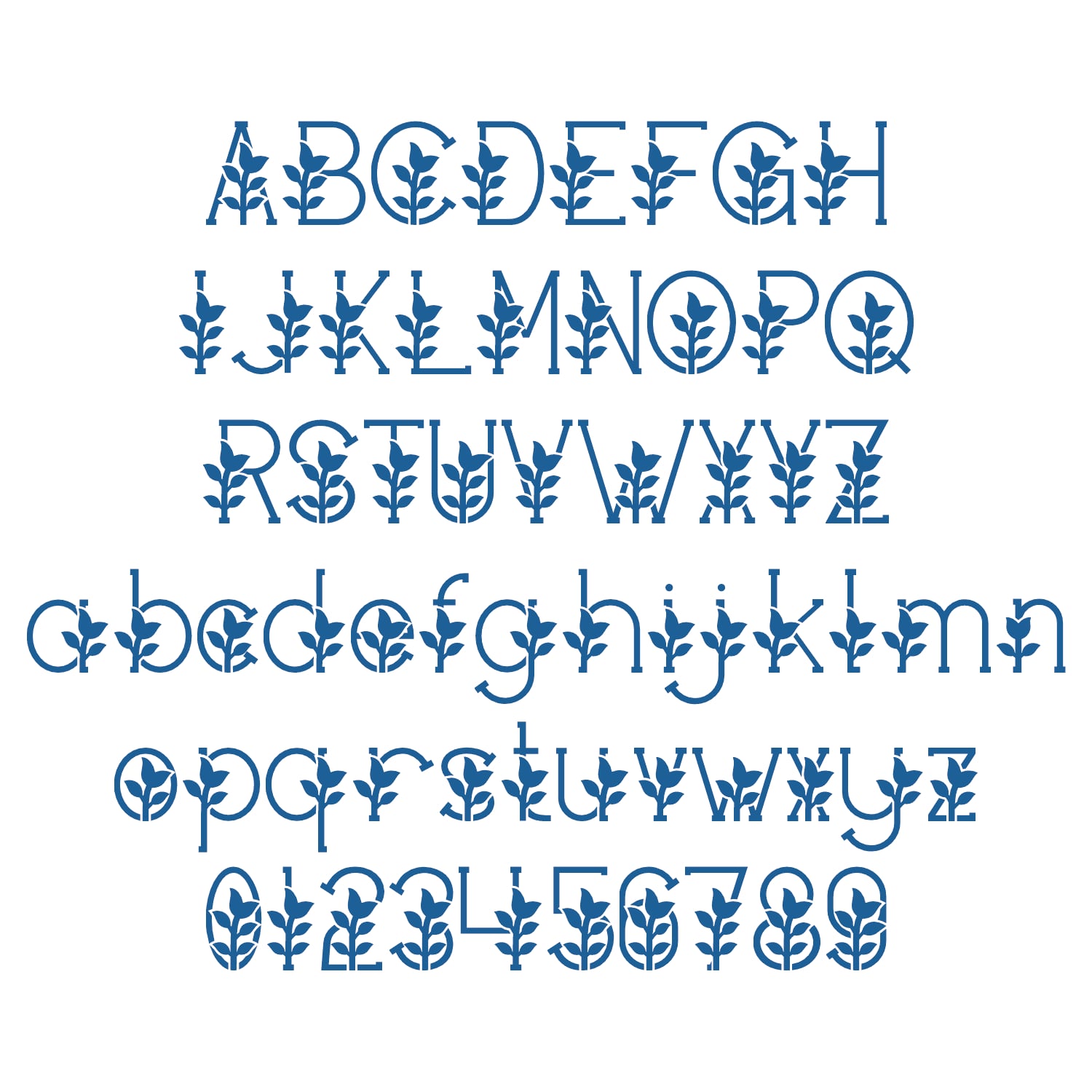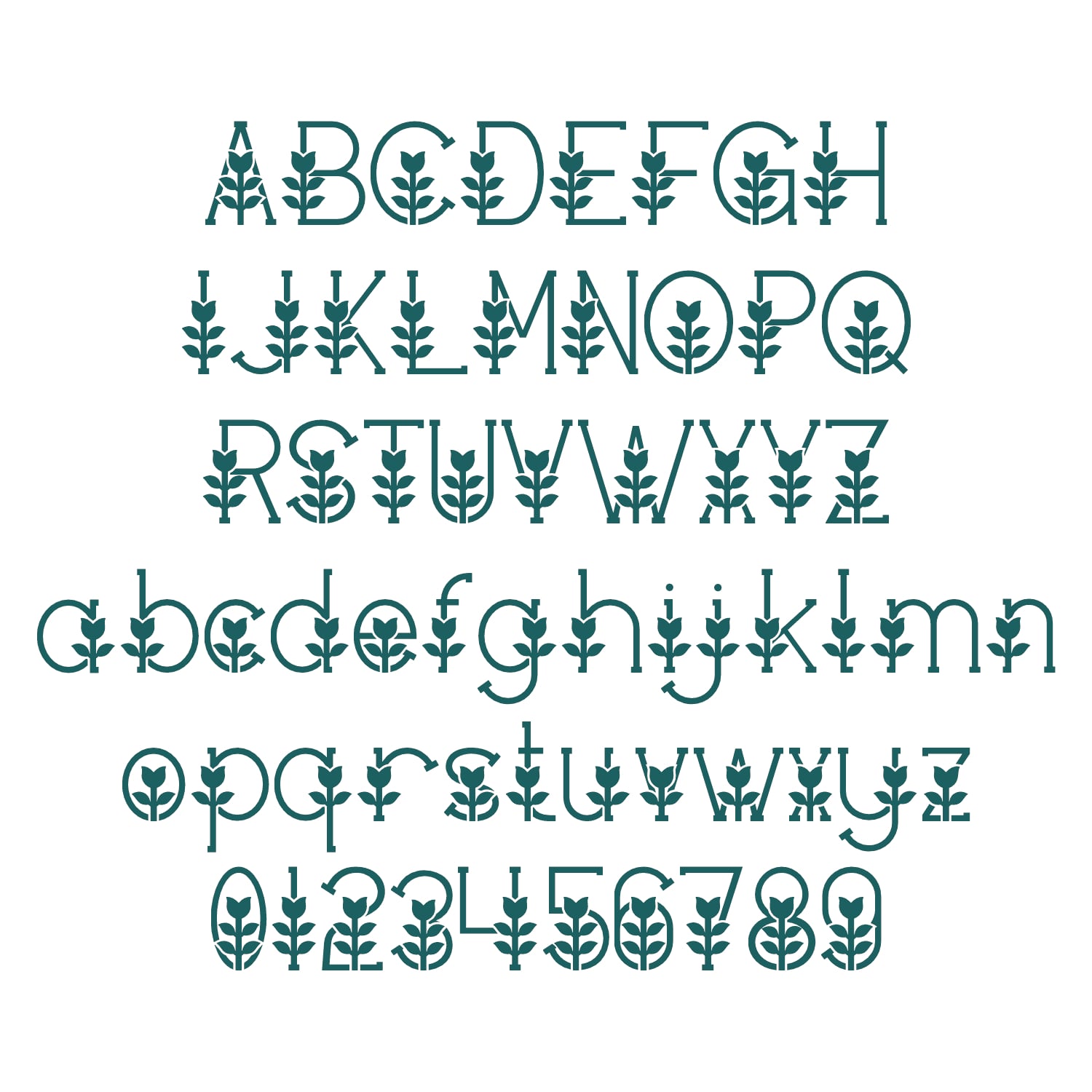
Create Awesome Dutch flora personalized names with this three set Tulip Flowers Monogram. Growing Flowers Center, Left and Right in this set. This font is perfect for creating back to school projects , personalized gifts, logos, wedding designs, and craft projects.
Works beautifully on shirts, tumblers, mugs, signs, invitations, decals, and boutique branding.
Perfect For:
- Tulip Flowers Personalized Monograms
- Custom Initial Designs
- Wedding Projects
- Cricut & Silhouette Crafts
- Vinyl Decals
- Tumblers & Mugs
- Shirts & Apparel
- Logo Design
- Home Decor Projects
Font Features:
- Tulip Flora Monogram
- Three-Letter Initial Design
- Europe Dutch Inspired Lettering
- Decorative Diamond Accents